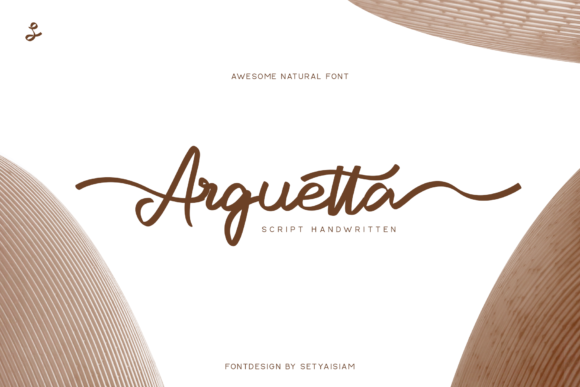
In a world saturated with digital noise, your words deserve a stage that commands attention. Introducing Arguetta, the captivating script font that dances across screens like a whisper of elegance.
Crafted with meticulous care by setyaisiam, Arguetta is an ode to the beauty of handwritten artistry, reimagined for the modern age. Its varying baseline, smooth lines, and stunning alternates weave a tapestry of visual intrigue that elevates your words beyond mere text.
Immerse yourself in the allure of Arguetta's swashes and glyphs, accessible with ease through PUA encoding. Each character carries a story, a hint of personality that adds depth and dimension to your designs.
Whether you're a storyteller weaving tales of love and adventure, a designer seeking to capture hearts with your creations, or simply someone who appreciates the timeless charm of handwritten beauty, Arguetta is your muse.
Unleash your creativity and let Arguetta guide your words to greatness. Experience the joy of crafting designs that captivate, engage, and leave a lasting impression. Embrace the power of Arguetta and watch your projects soar to new heights of brilliance.